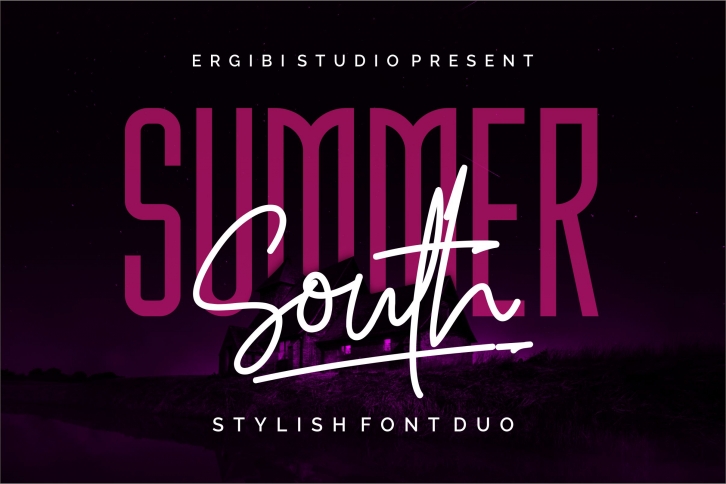
Summer South is a gorgeous font that was realeased on February 13, 2020. The font can be used in many style contexts and design environments. Perfect for invitations, magazines, websites, logos, and more! It was designed by Ergibi Studio and the file size is 8.76 MB. Thanks for checking out this font!